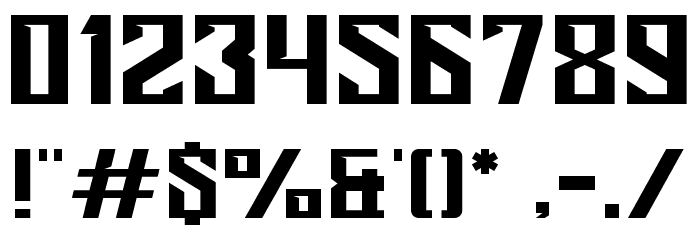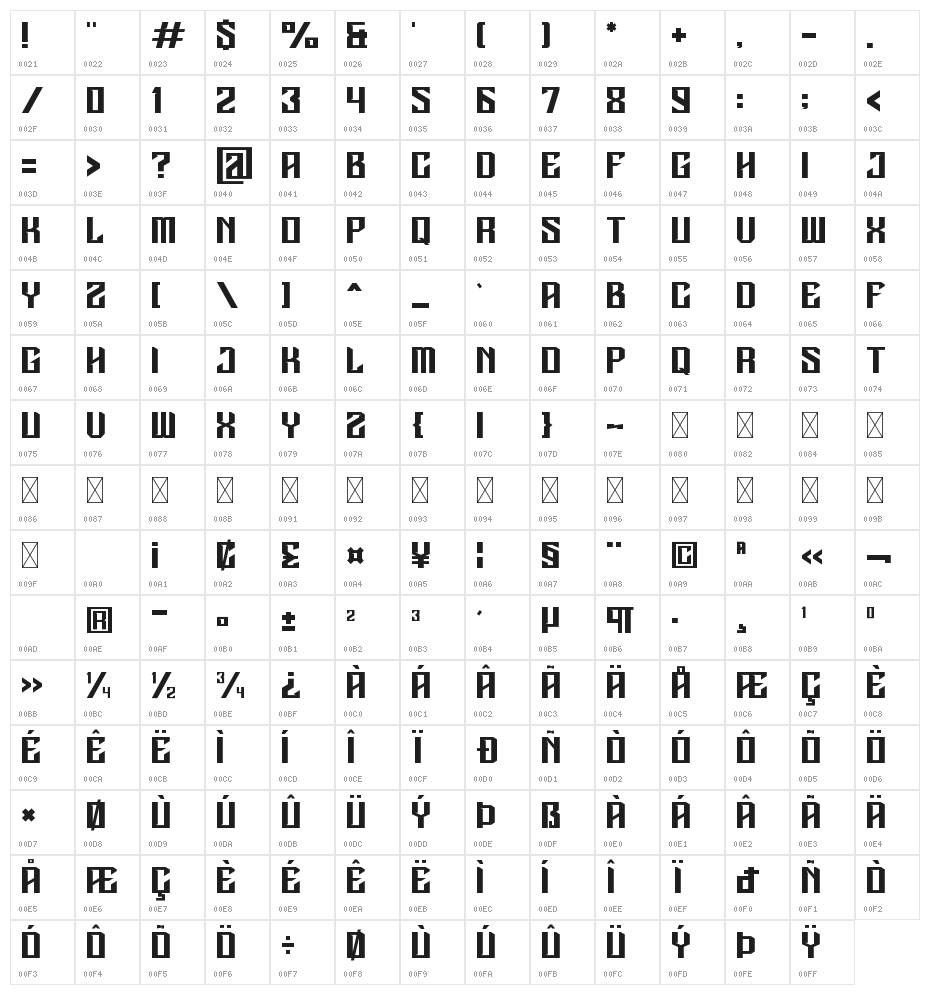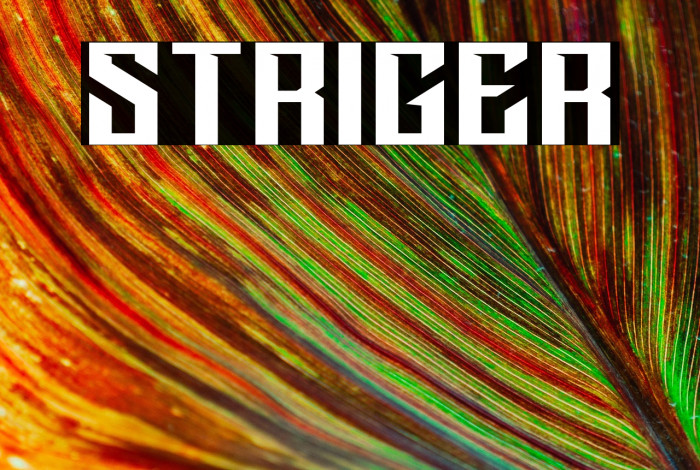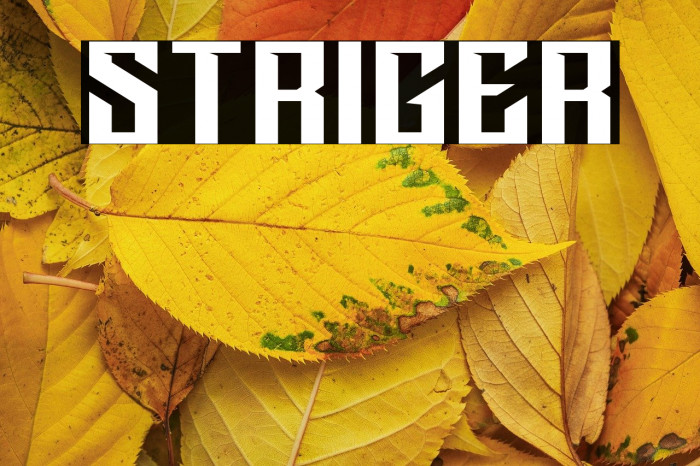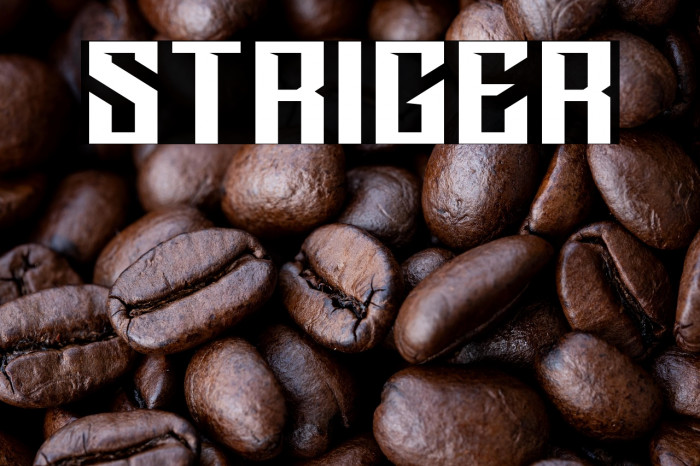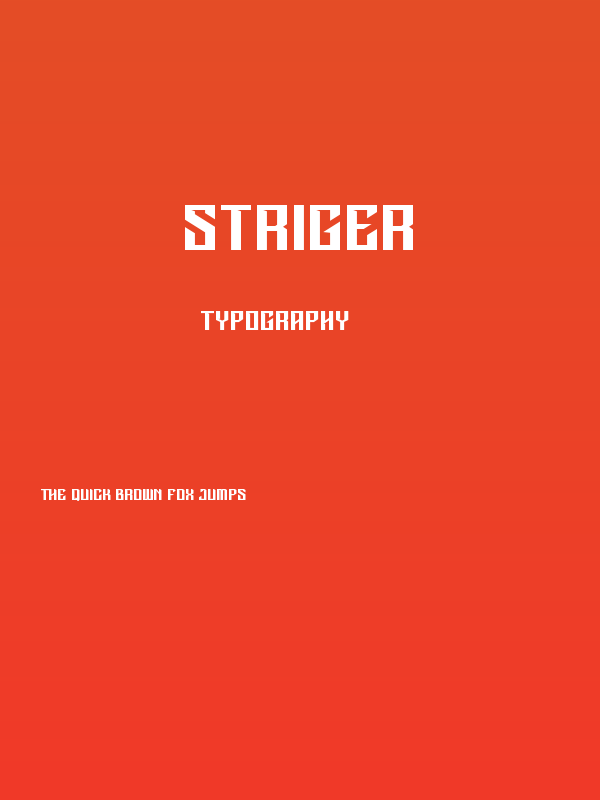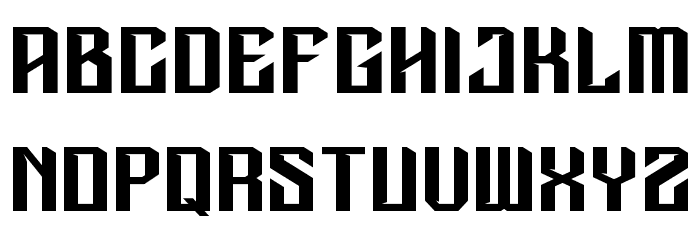
STRIGER Font
STRIGER Description
This font features a bold and angular design, characterized by sharp edges and geometric shapes. The uppercase letters are particularly striking, with a strong, commanding presence that suggests a modern and edgy aesthetic. The numbers and special characters maintain this boldness, ensuring consistency across all glyphs. The font's style is reminiscent of industrial or futuristic themes, making it suitable for projects that require a strong visual impact. Its unique design can capture attention and convey a sense of strength and innovation.
Proposed ProjectsIdeal for branding, posters, video game titles, and any project needing a strong, futuristic look.